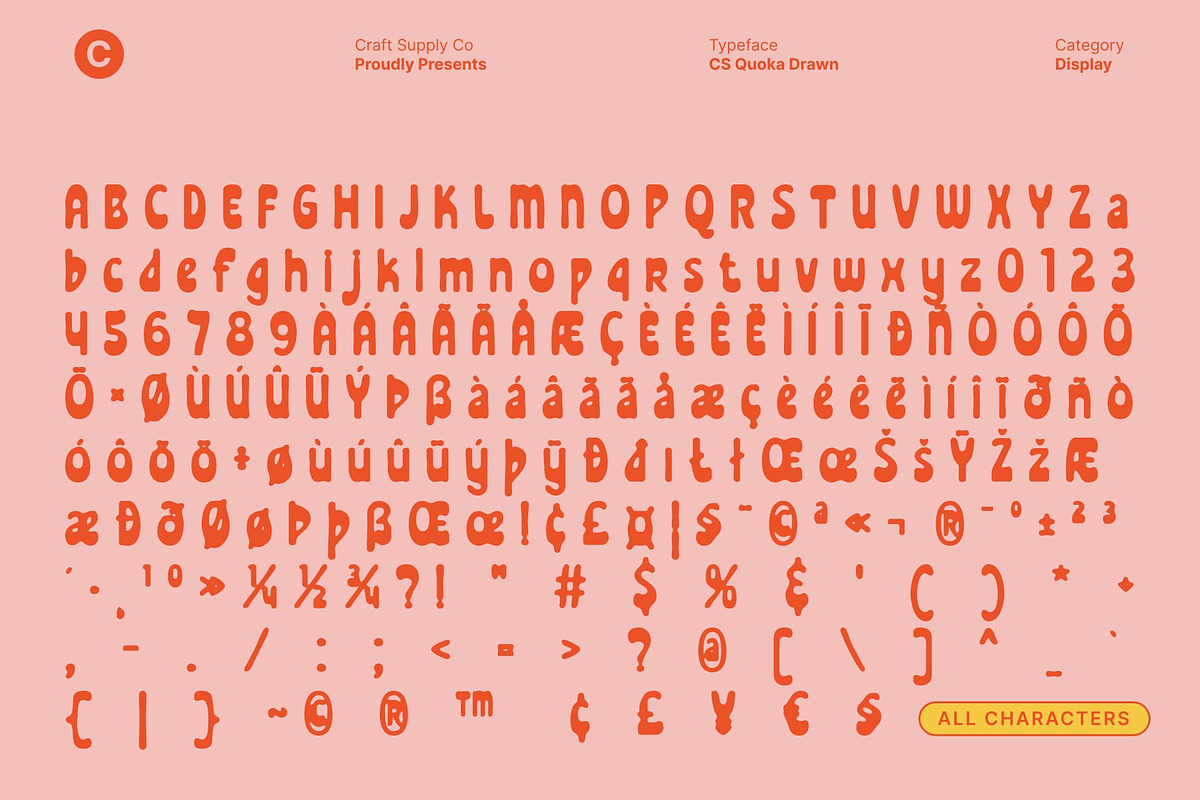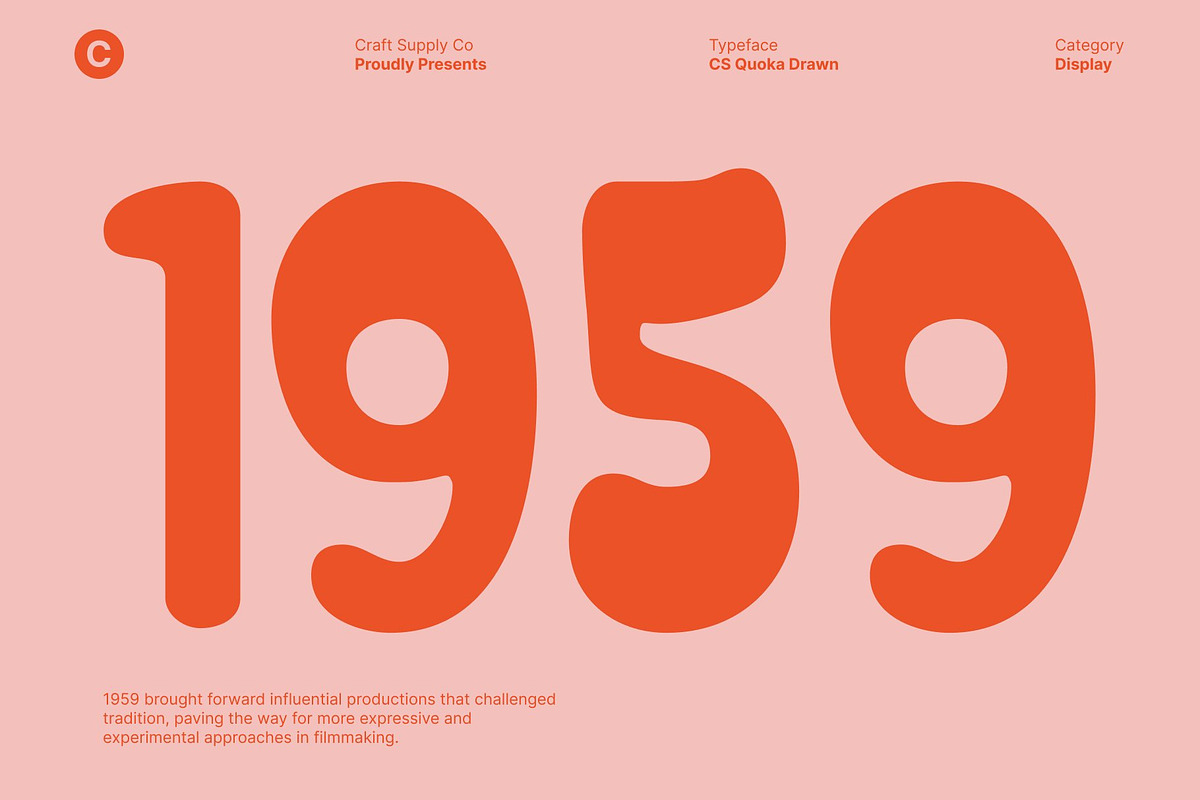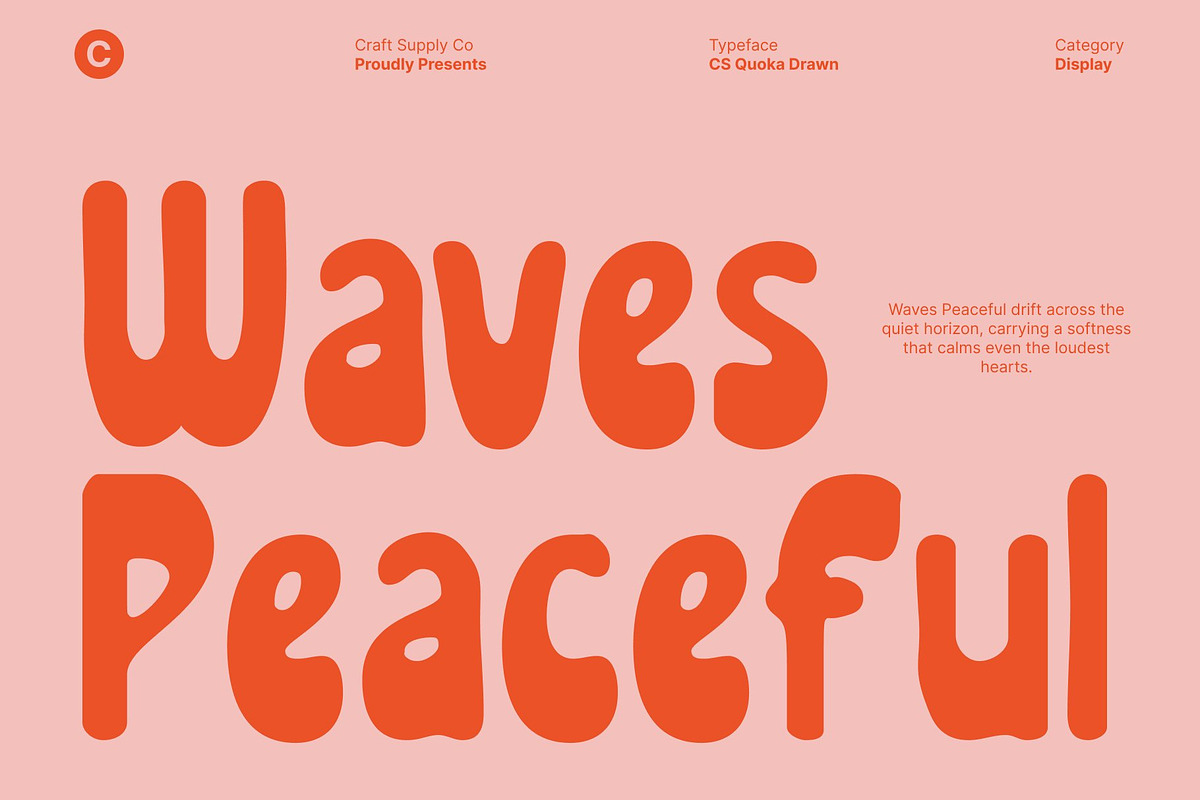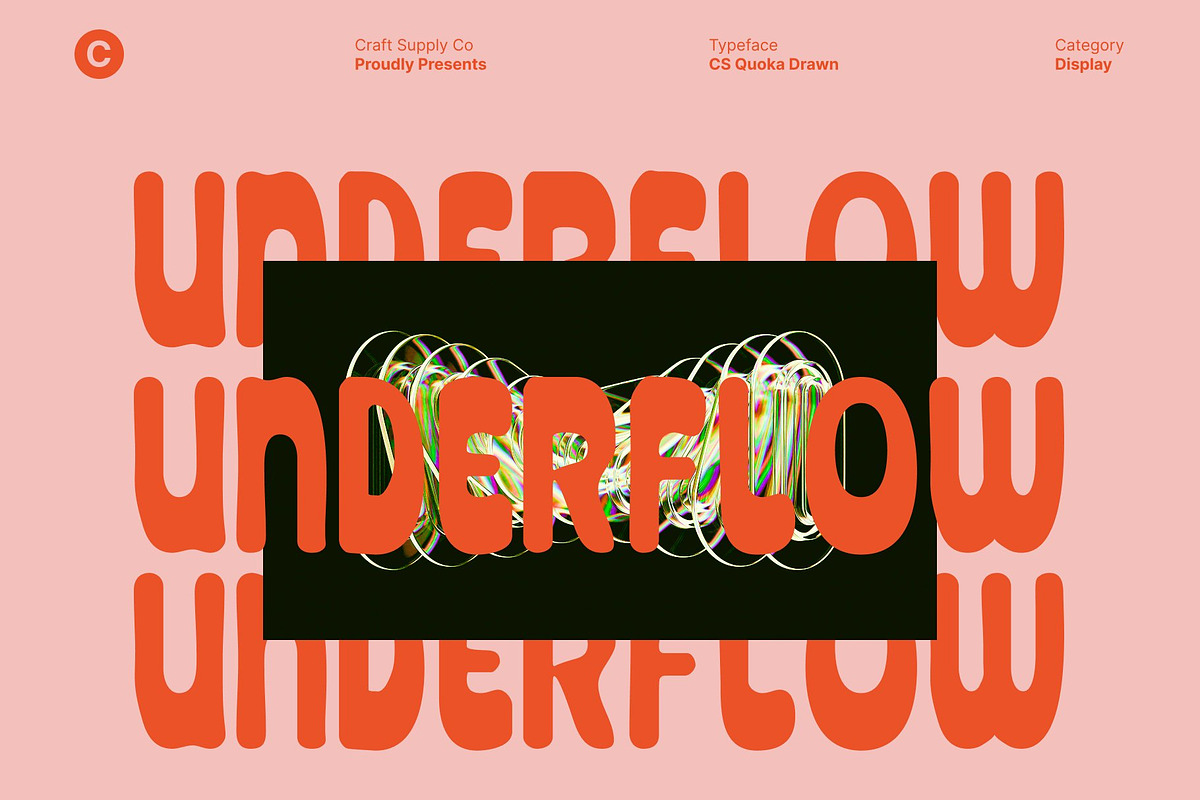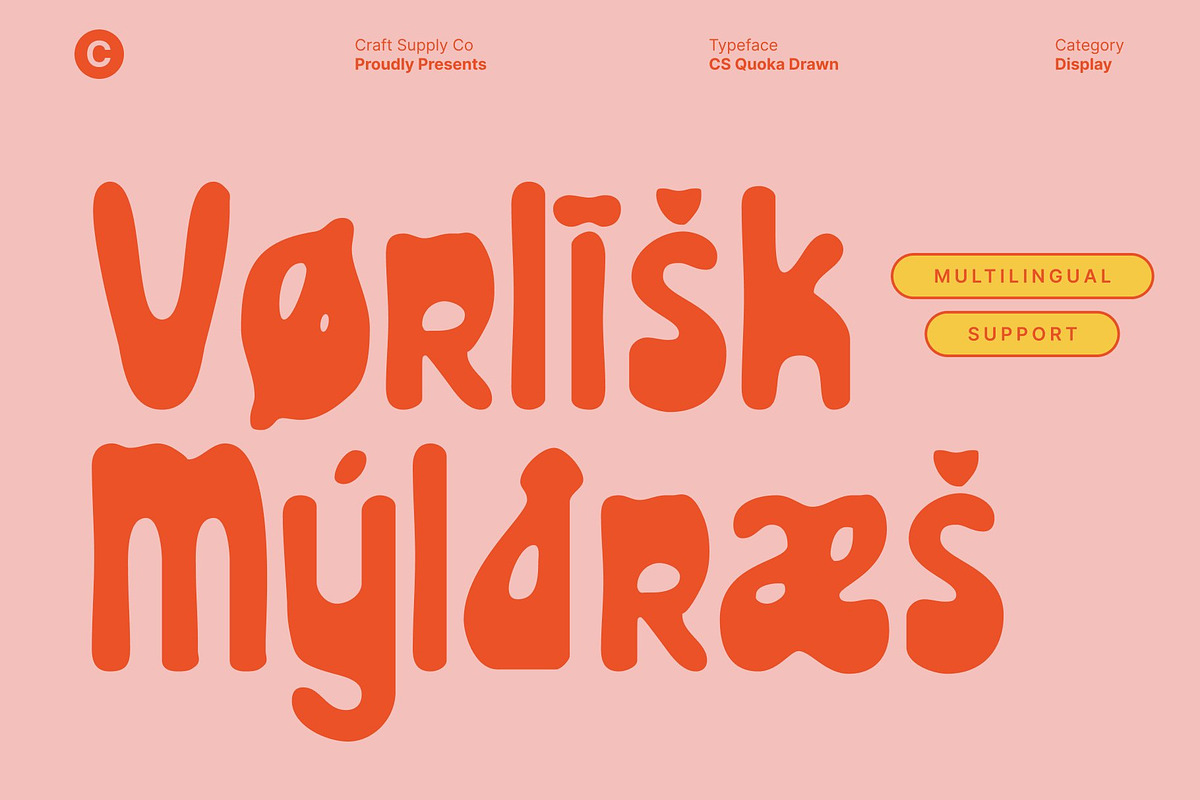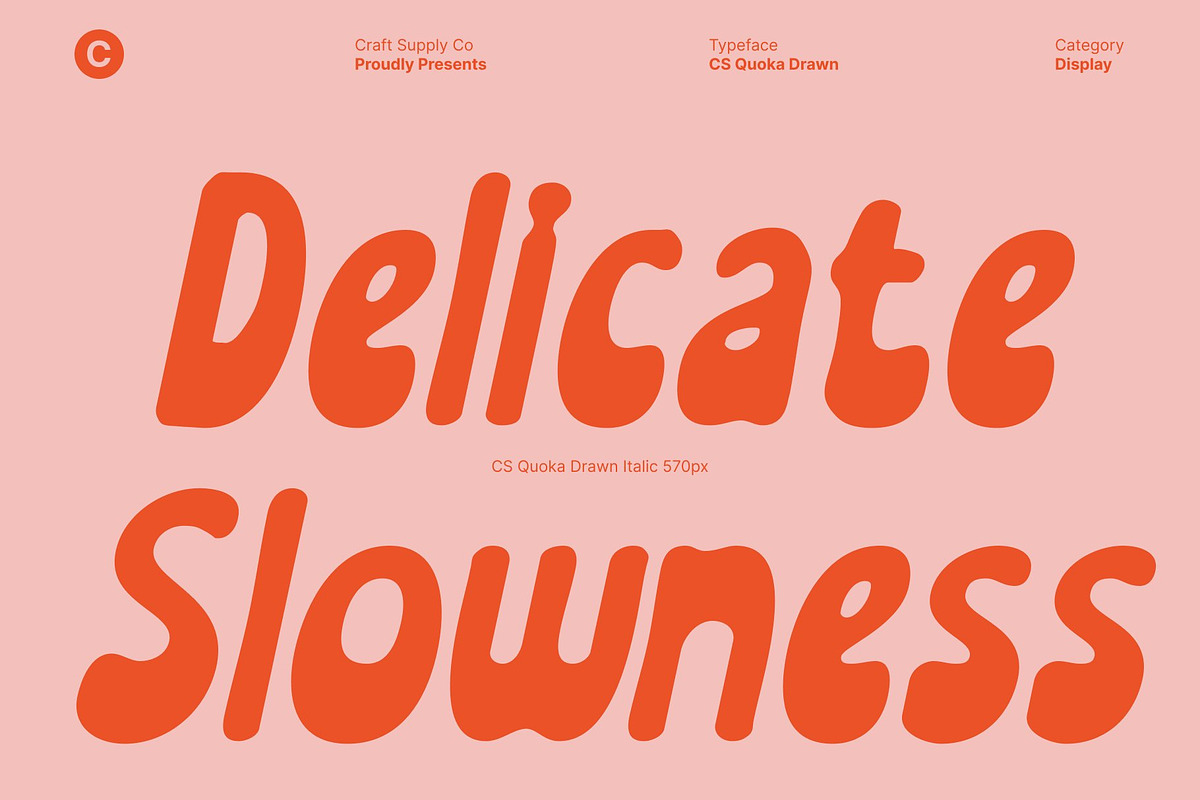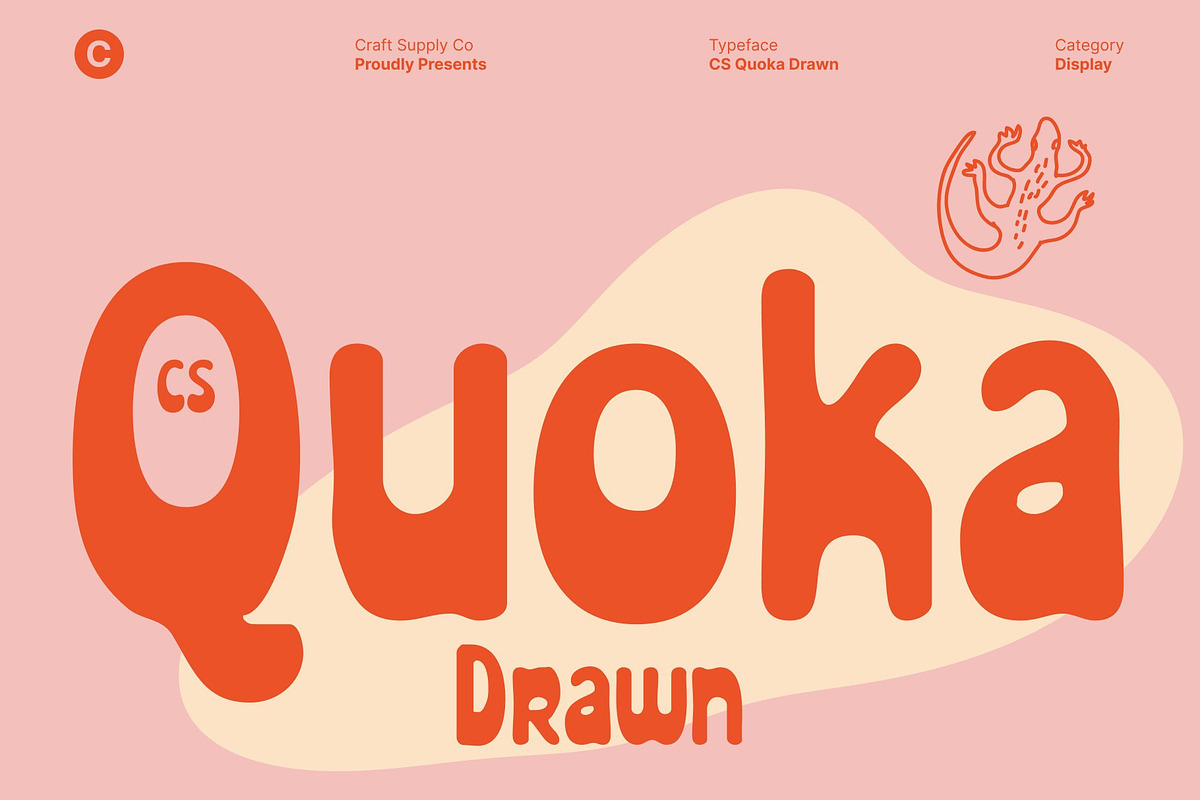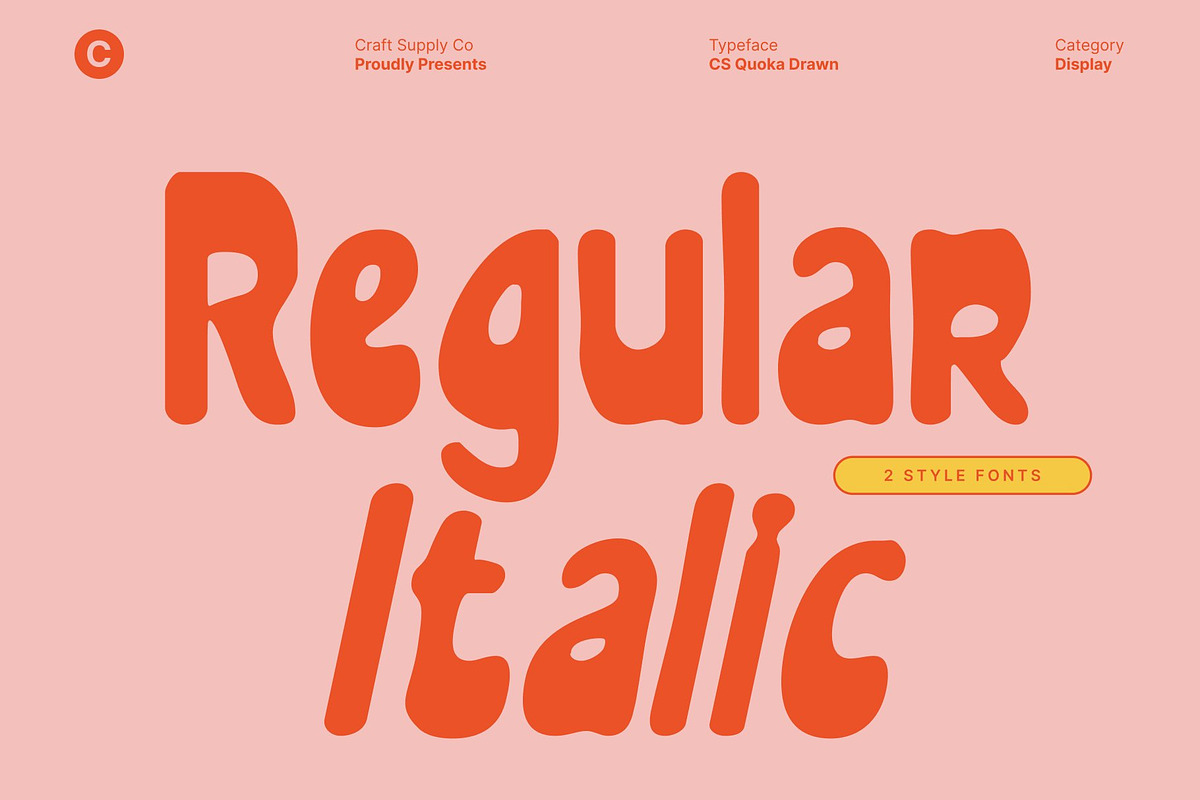
CS Quoka Drawn
CS Quoka Drawn – Groovy Display Font with Artistic Drawn Texture
Energetic Letterforms with Retro Vibes This groovy display font features retro-inspired shapes that radiate energy and playfulness. Its bold curves and dynamic forms create a funky, lively aesthetic, perfect for designs that aim to capture joy, movement, and a vintage groove.
Drawn Effect for Soft, Artistic Expression The drawn effect adds a handcrafted, soft texture to each character, enhancing its artistic quality and giving the font a friendly, approachable personality. This subtle detailing ensures the typography feels organic, vibrant, and visually engaging.
Funky, Artistic, and Visually Delightful By merging groovy retro shapes with a soft, drawn texture, this font delivers a typeface that is both playful and artistic. It’s the perfect choice for designers seeking a lively, joyful, and visually captivating display font for creative projects.